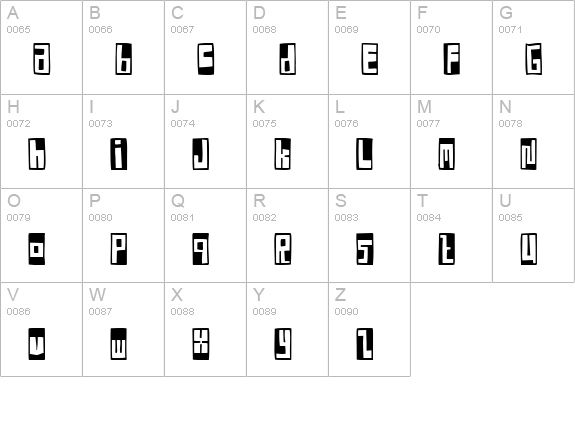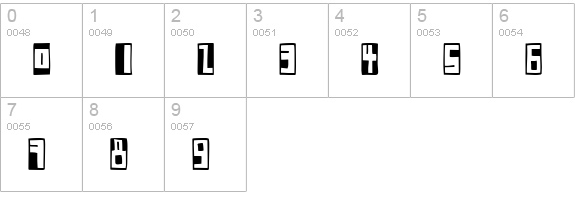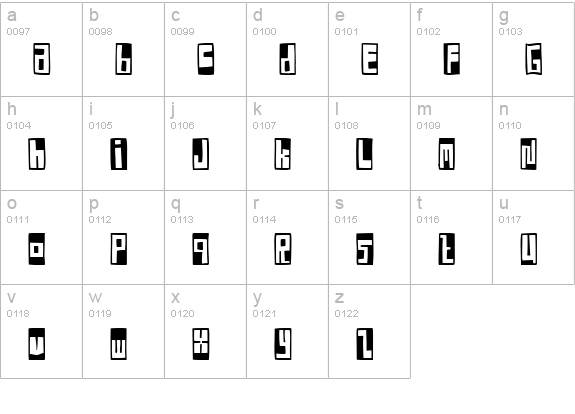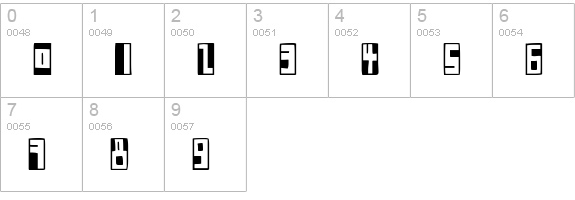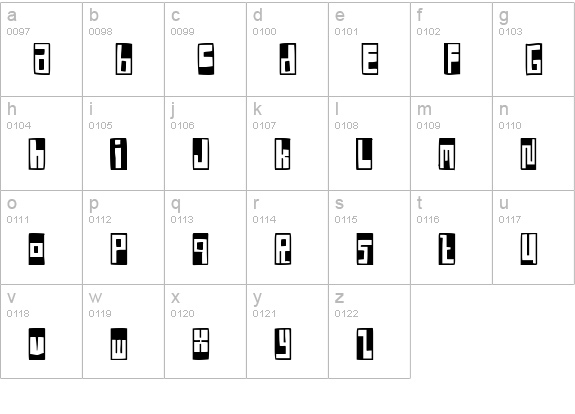
Box Font Negative is a unique and eye-catching display font that will make your designs stand out. With its bold and modern style, this font is perfect for headlines, posters, and branding projects. The striking box-like shapes give a contemporary feel to any text, making it a versatile choice for various design purposes. Best of all, Box Font Negative is available for free download at FontsMarket.com. This means you can easily access this stylish font and use it in your projects without any cost. Don't miss out on this opportunity to add a touch of creativity and sophistication to your designs with Box Font Negative. Download it now and elevate your typography game!